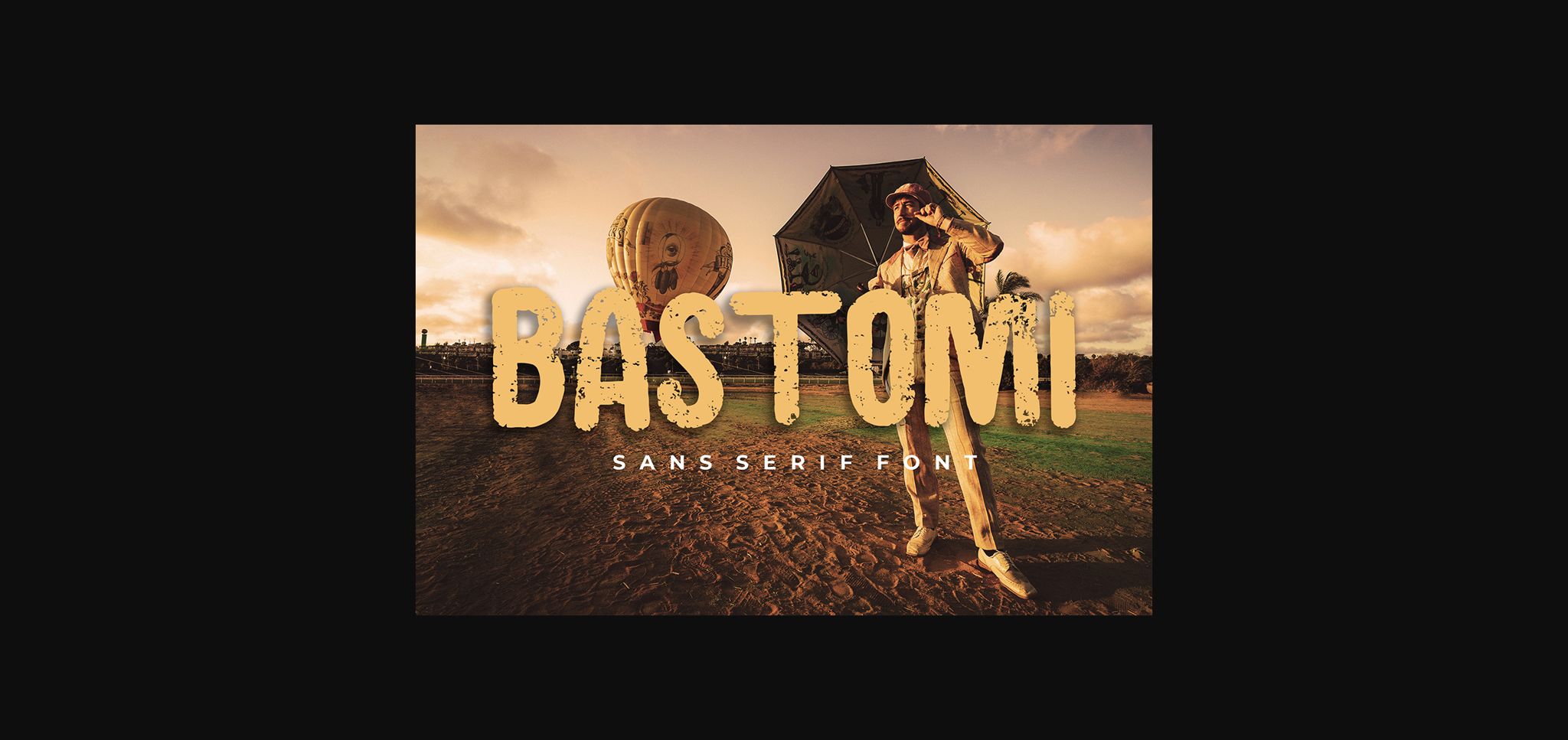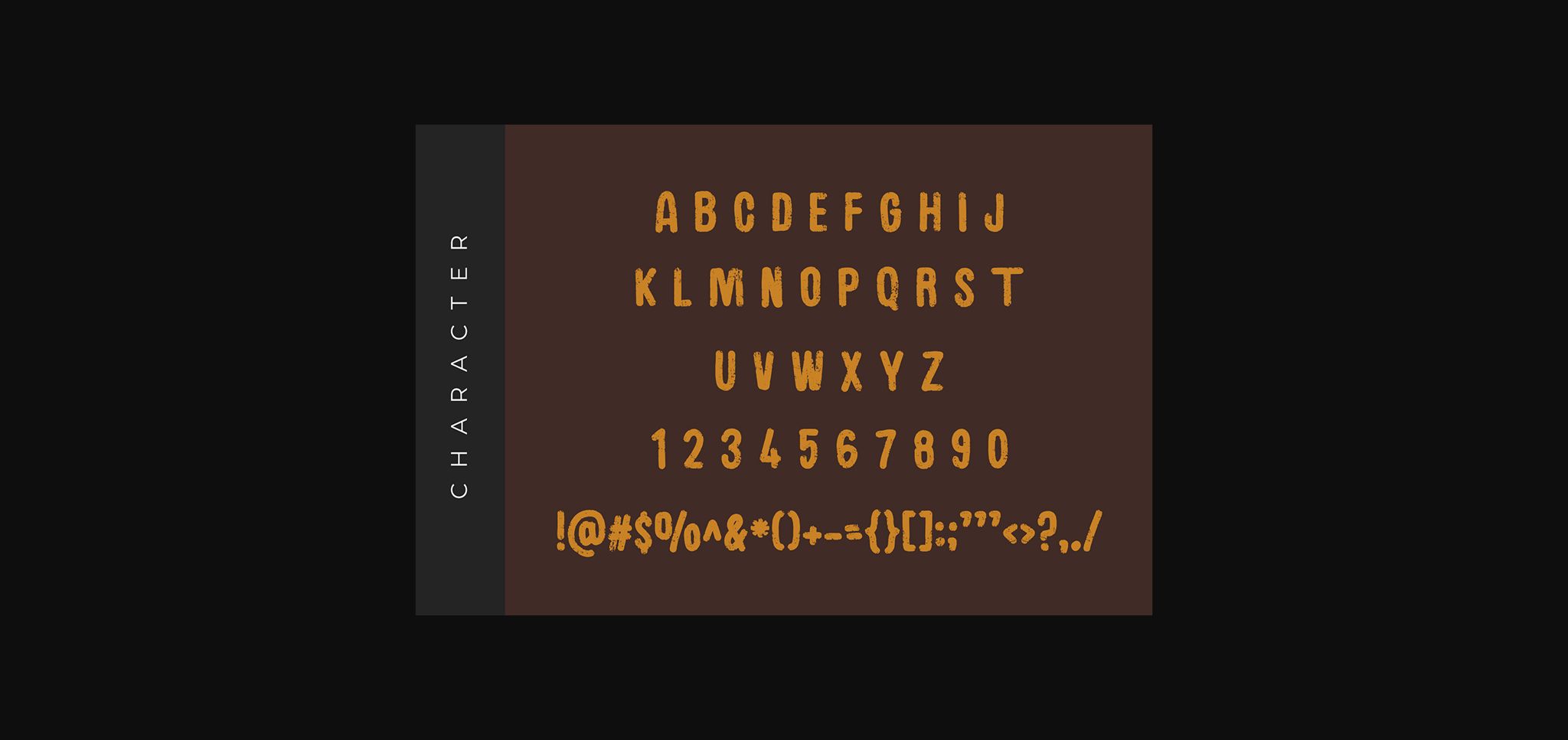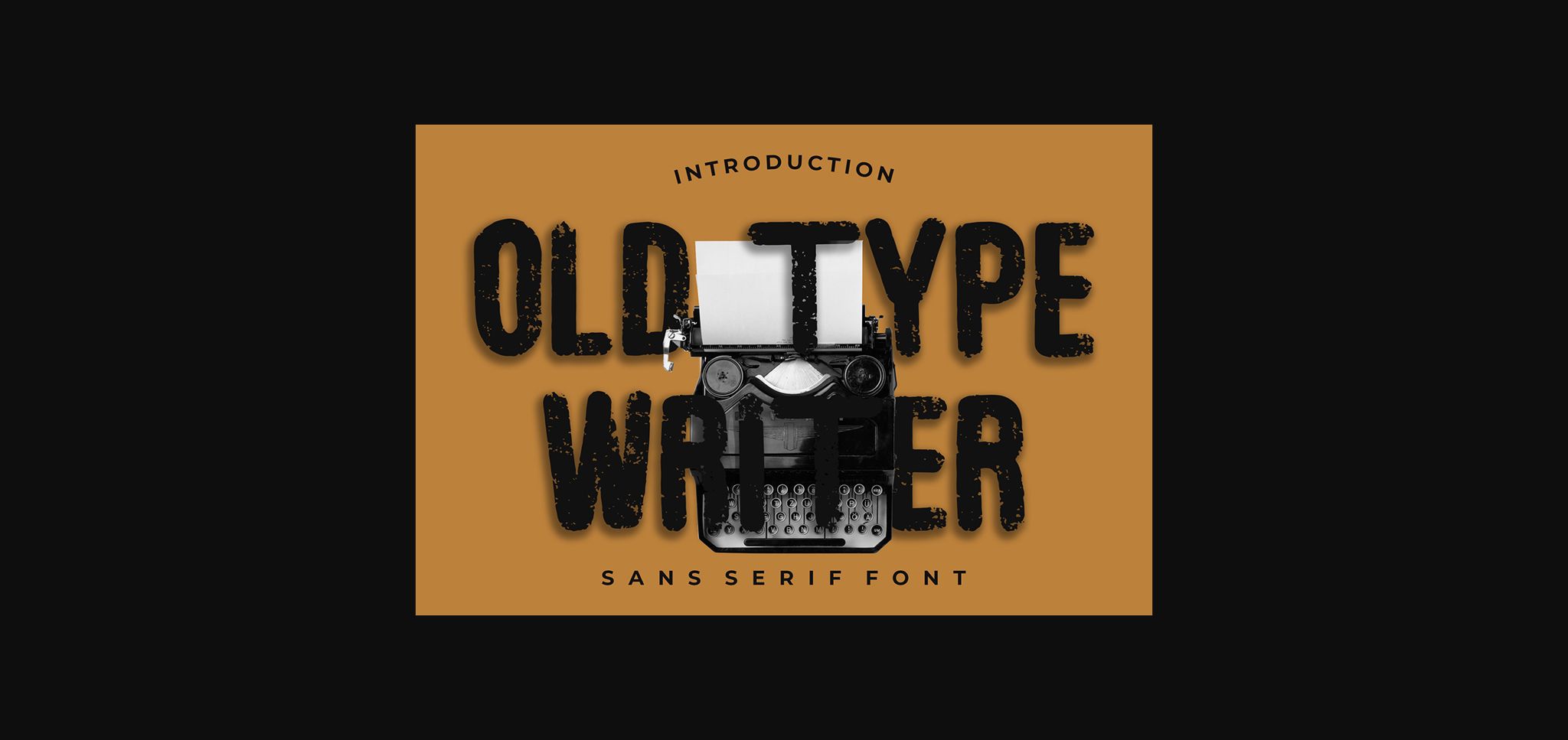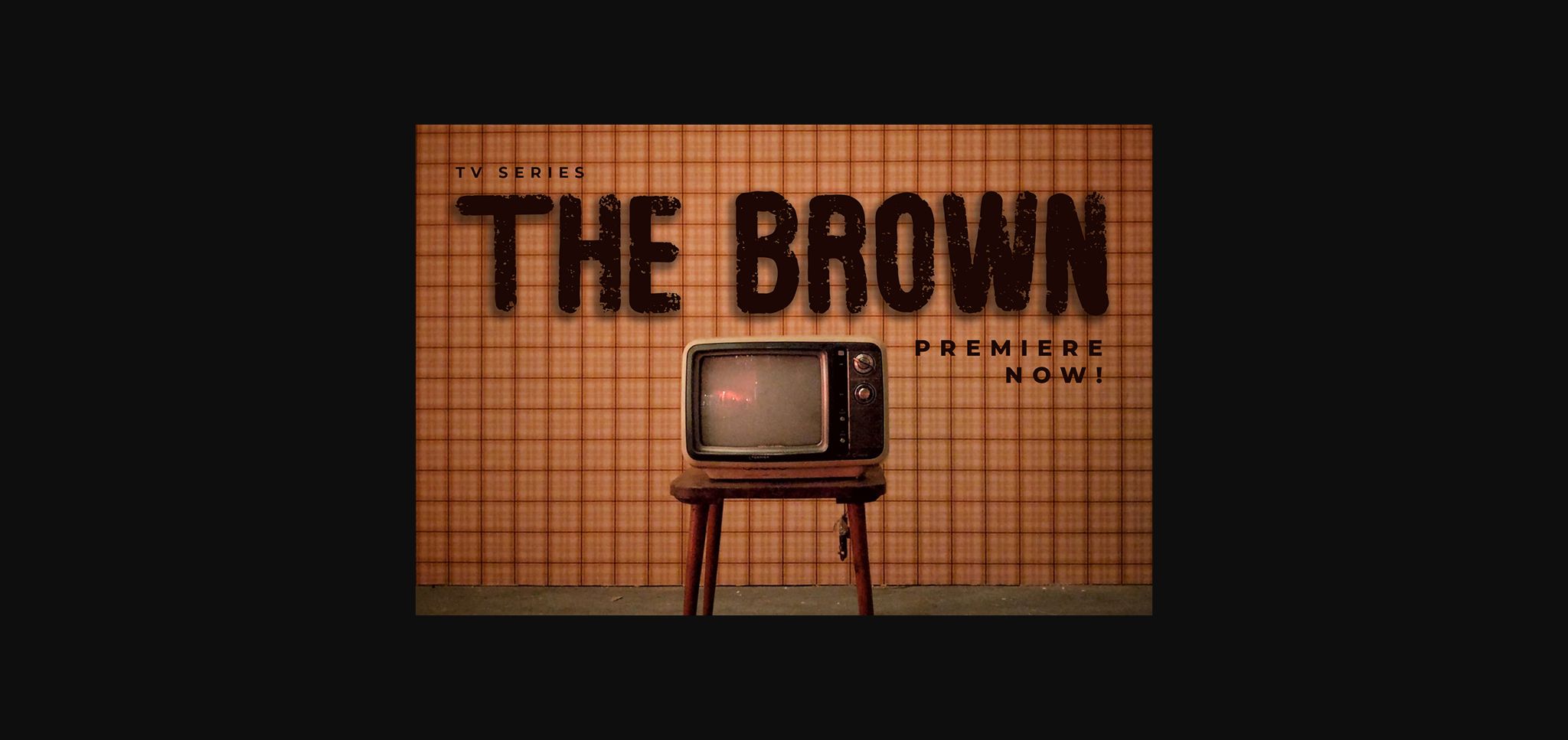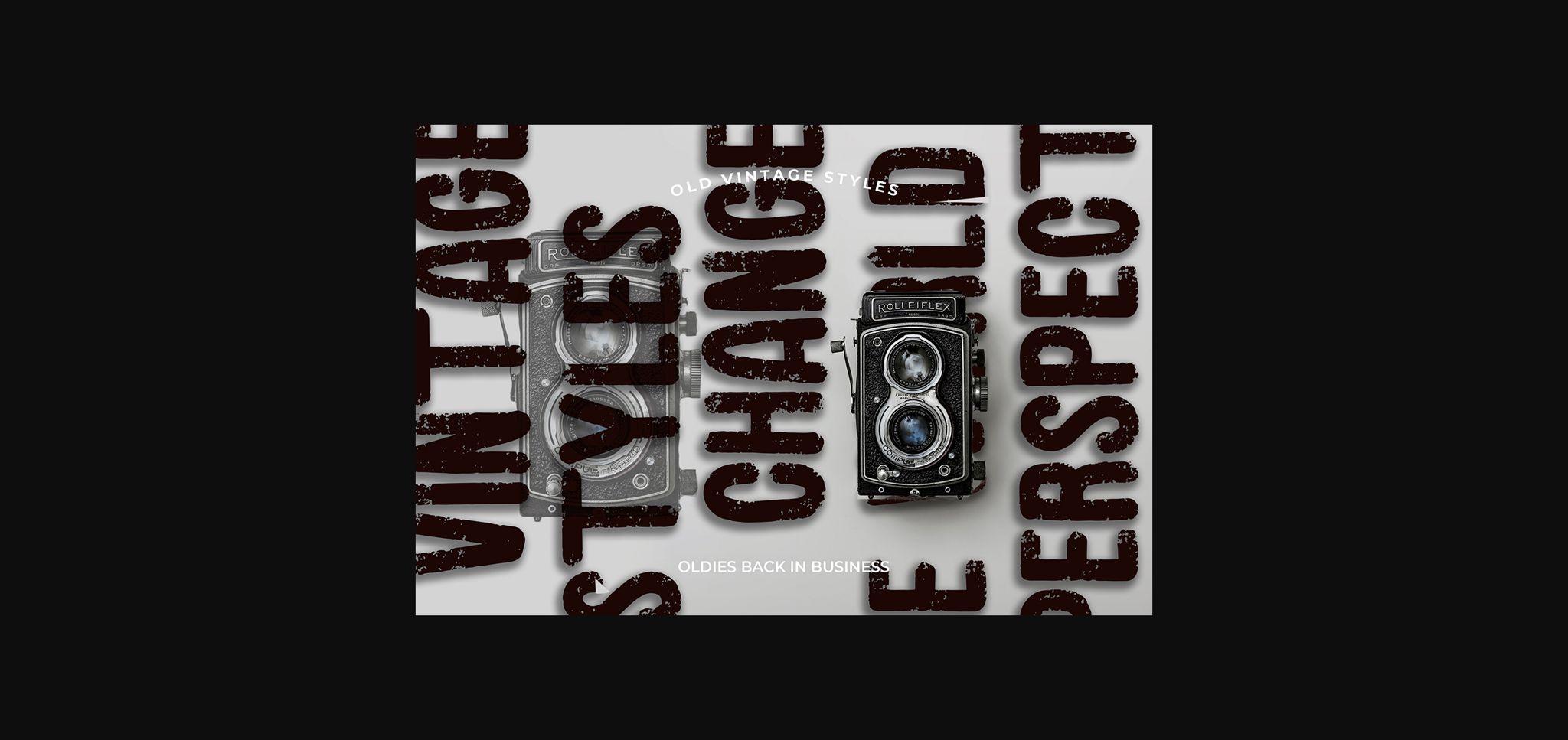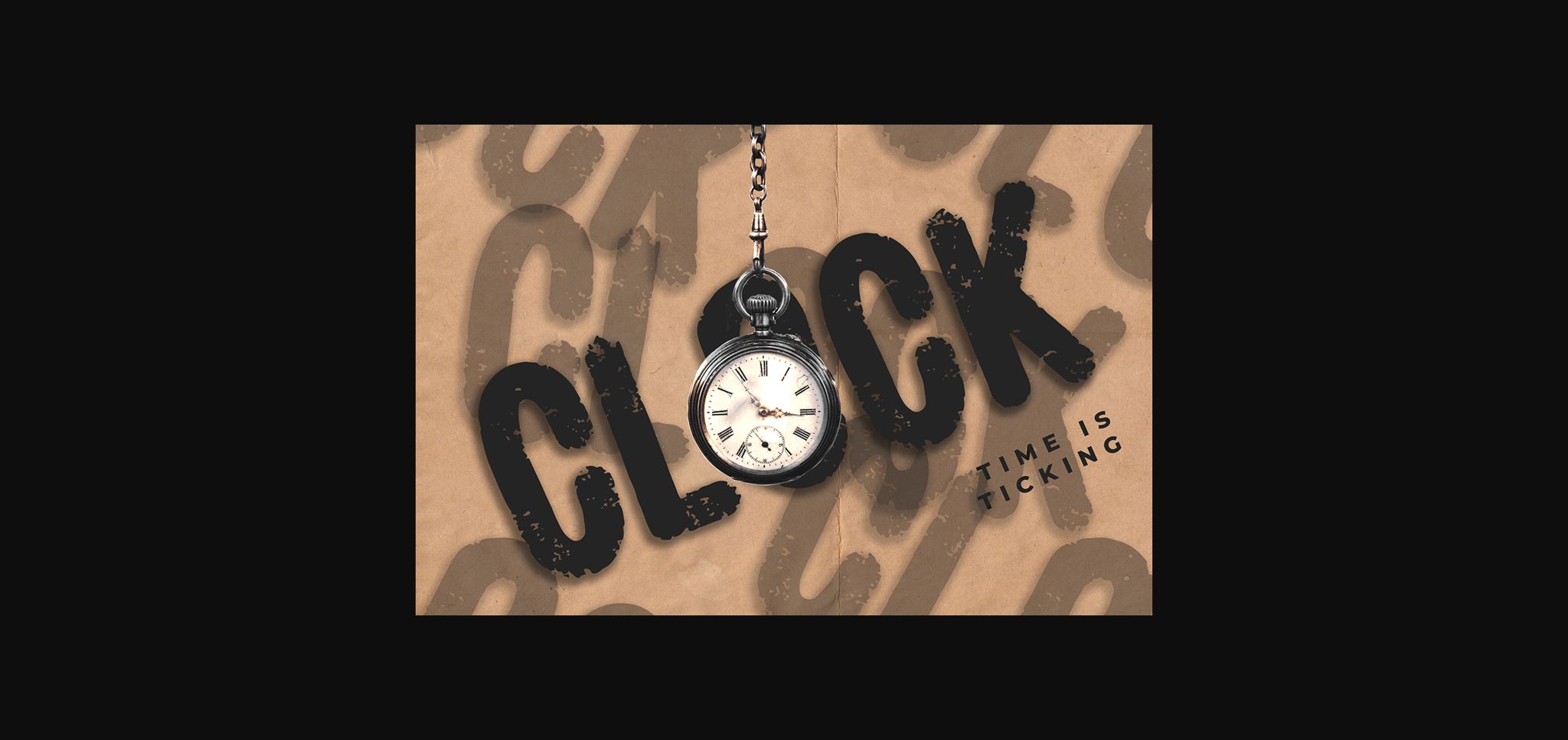
HomeSans Serif FontsBastomi Font Sans Serif Fonts Bastomi Font FacebookXPinterestWhatsApp 1 of 8 ... Bastomi Font Poster 2... Bastomi Font Poster 3... Bastomi Font Poster 4... Bastomi Font Poster 5... Bastomi Font Poster 6... Bastomi Font Poster 7... Bastomi Font Poster 8... About Bastomi Font Bastomi is a dirty and rough sans serif font that feels incredibly raw. It will add an organic and natural feel to a wide variety of designs! DOWNLOAD NOW People also explored Netherlande Font Better Christmas Font Brigtia Font Ereiek Font Register B Starlla Font Christmas Bright 11 Font Malyna Font Boho Sunshine Font 326 0 TagsBastomiBastomi Font Previous articleKlamoure FontNext articleMoule Bold Font LEAVE A REPLY Cancel reply Comment: Please enter your comment! Name:* Please enter your name here Email:* You have entered an incorrect email address! Please enter your email address here Website: Save my name, email, and website in this browser for the next time I comment. Personal Use Free Coconote Personal Use Free Read more about this font Hubbies Personal Use Free Read more about this font Still Time Personal Use Free Read more about this font Rheiborn Personal Use Free Read more about this font BLOG Transform Your Website: Elevate Your Typography with 7 Best Web Font Generators Are you ready to transform your website's typography from ordinary to extraordinary? Great! Today, we're diving into the world of web font generators, which... Free vs Paid Fonts: Why Investing in Premium Fonts Is Worth It Free Fonts Risk: Why Free Fonts Can Be Dangerous for Designers Where to Buy American Fonts Online in 2024